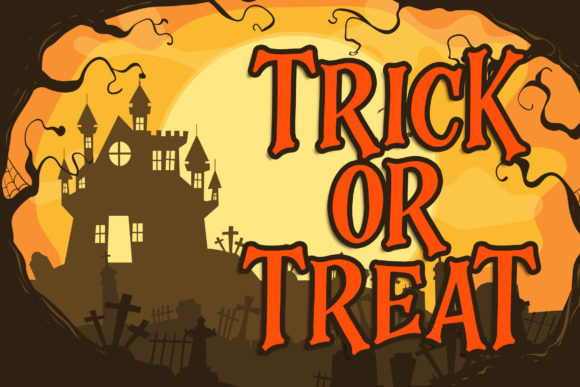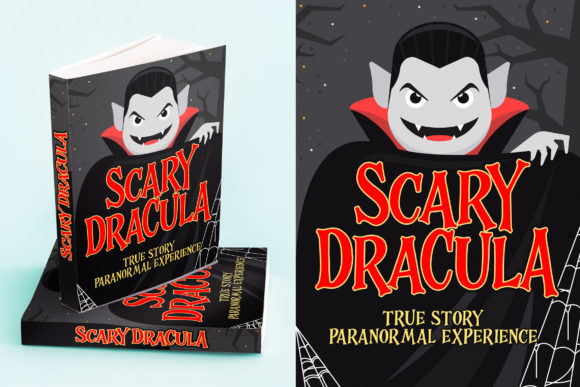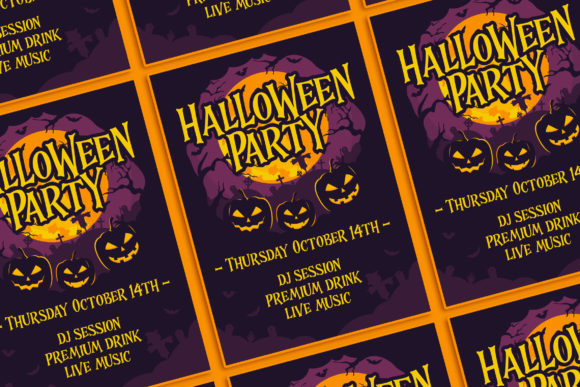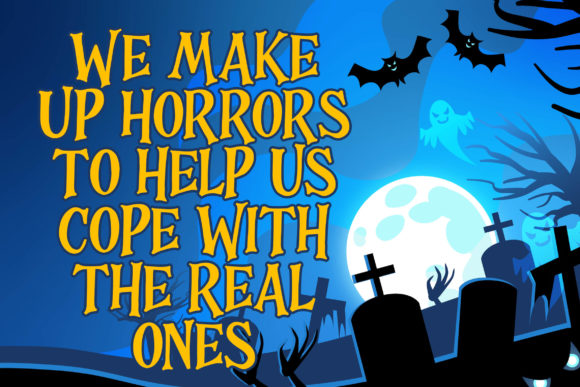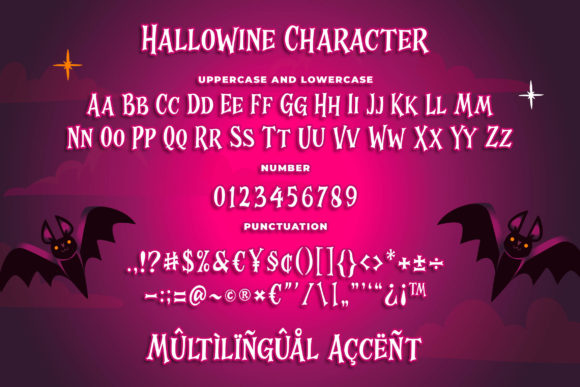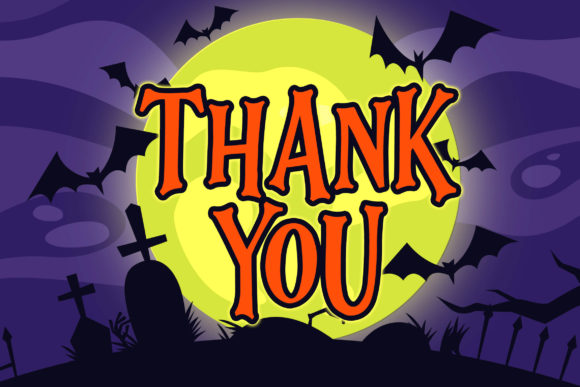
Hallowine Font: The Spookiest Display Font for Your DIY Projects
Are you looking for a font that will add a touch of spookiness to your DIY projects? Look no further than the Hallowine font! This fun and unique font is perfect for designers and crafters who want to bring a little bit of Halloween magic to their work. In this article, we’ll take a closer look at the Hallowine font, its features, and how you can use it to take your DIY projects to the next level.
What is Hallowine Font?
Hallowine is a spooky display font that is sure to make your DIY projects stand out. With its bold and playful design, this font is perfect for creating eye-catching titles, headings, and signs. The Hallowine font features a range of characters, including letters, numbers, and punctuation marks, all designed to give your text a spooky and festive feel.
Features of Hallowine Font
So, what makes the Hallowine font so special? Here are just a few of its key features:
- Spooky and festive design: The Hallowine font features a bold and playful design that is perfect for Halloween-themed DIY projects.
- Wide range of characters: The font includes a wide range of characters, including letters, numbers, and punctuation marks.
- Unique and fun: The Hallowine font is a unique and fun way to add some personality to your DIY projects.
How to Use Hallowine Font in Your DIY Projects
So, how can you use the Hallowine font in your DIY projects? Here are a few ideas to get you started:
- Create spooky signs and banners: Use the Hallowine font to create spooky signs and banners for your Halloween party or DIY project.
- Make festive invitations: Use the Hallowine font to create festive invitations for your Halloween party or event.
- Add a touch of spookiness to your crafts: Use the Hallowine font to add a touch of spookiness to your DIY crafts, such as Halloween-themed cards, gift tags, and decorations.
- Create a spooky logo or branding: Use the Hallowine font to create a spooky logo or branding for your business or DIY project.
Tips for Using Hallowine Font
Here are a few tips for using the Hallowine font in your DIY projects:
- Use it sparingly: While the Hallowine font is fun and playful, it can be overwhelming if used too much. Use it sparingly to add a touch of spookiness to your project.
- Pair it with other fonts: The Hallowine font looks great when paired with other fonts, such as a simple sans-serif font. Experiment with different font combinations to find the one that works best for your project.
- Experiment with different colors: The Hallowine font looks great in a range of colors, from bright and bold to more muted and subtle. Experiment with different colors to find the one that works best for your project.